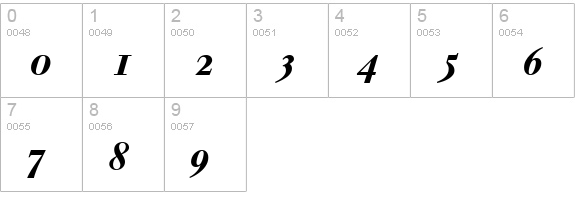
Walbaum Bold Italic Oldstyle Figures is a strong, high-contrast, italic variant in the Walbaum typeface family \xE2\x80\x94 well suited to headlines, attention-grabbing titles, and strong calls-to-action.
Walbaum Bold Italic Oldstyle Figures is a mesmerizing and elegant font that perfectly combines boldness and sophistication. With its distinctive curves and slanted strokes, this font exudes a sense of timeless beauty and refinement. The bold weight of the letters adds a touch of confidence and strength, while the italic style adds a subtle sense of movement and grace. What sets Walbaum Bold Italic Oldstyle Figures apart is its unique incorporation of oldstyle figures. These figures are reminiscent of classic typography, with their varying heights and proportions. They add a touch of vintage charm to any design, making it perfect for projects that require a hint of nostalgia or a classic aesthetic. This font is not only visually stunning but also highly functional. Its clear and easy-to-read letterforms make it suitable for a variety of applications, including editorial design, branding, packaging, and more. Whether used for headlines, body text, or captions, Walbaum Bold Italic Oldstyle Figures ensures that your message is conveyed with utmost clarity and impact. And the best part? Walbaum Bold Italic Oldstyle Figures is available for free download at FontsMarket.com. This means that you can enhance your designs with this exquisite font without any cost. Don't miss out on the opportunity to elevate your projects with the charm and elegance of Walbaum Bold Italic Oldstyle Figures. Download it now and let your creativity soar to new heights.